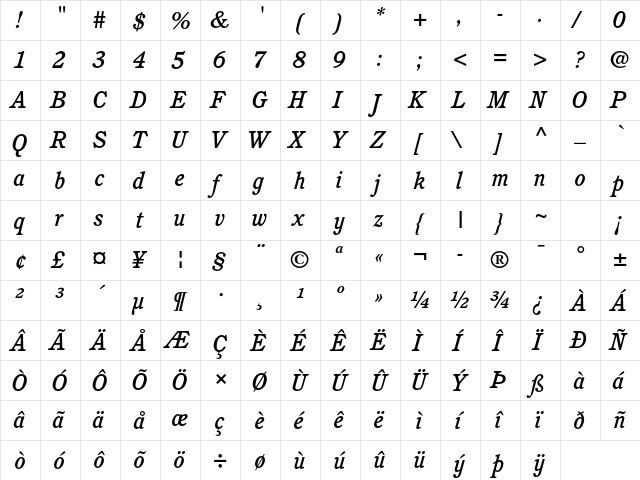
ITC Cushing Std Medium Italic
| Designer | Vincent Pacella |
Design Context for ITC Cushing Std Typeface
ITC Cushing Std takes a measured approach to typography — its balanced proportions and neutral character make it a reliable workhorse for both digital and print work. Its italic angle brings a sense of urgency and motion to the letterforms.
Pro Tip: Use ITC Cushing Std for emphasis, pull quotes, and subheadings where its slanted energy can add rhythm to the layout.